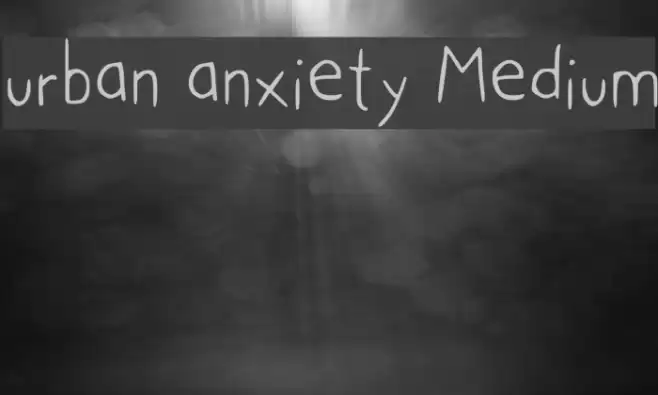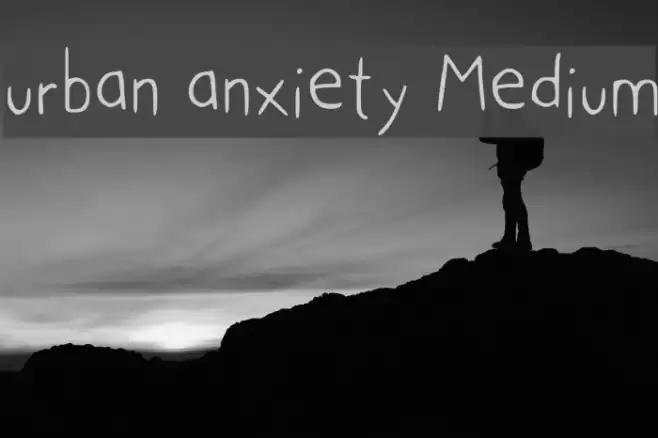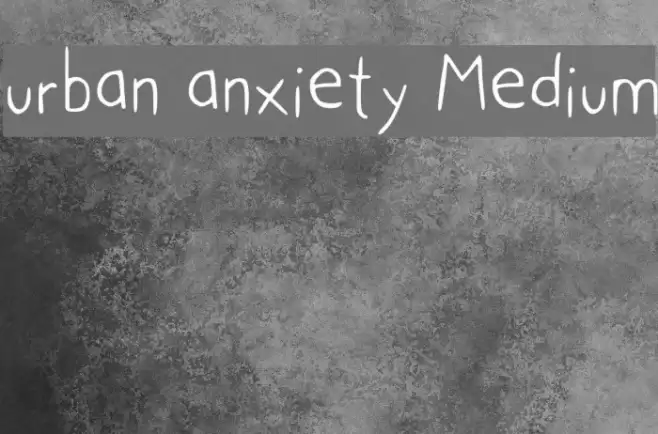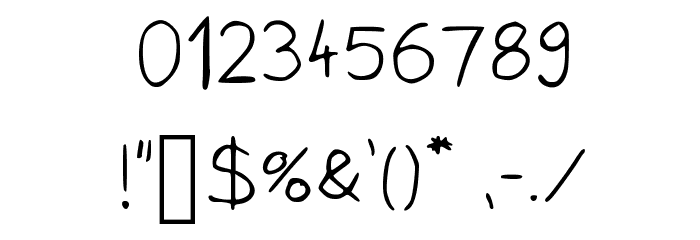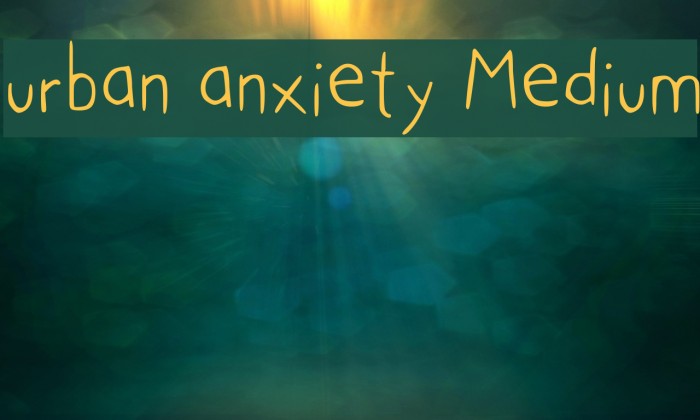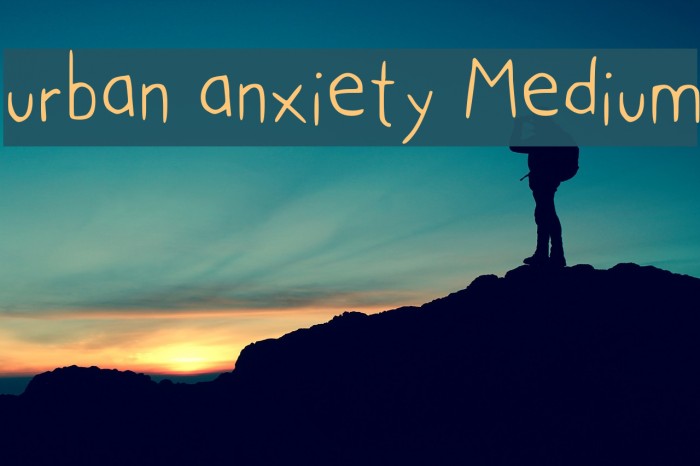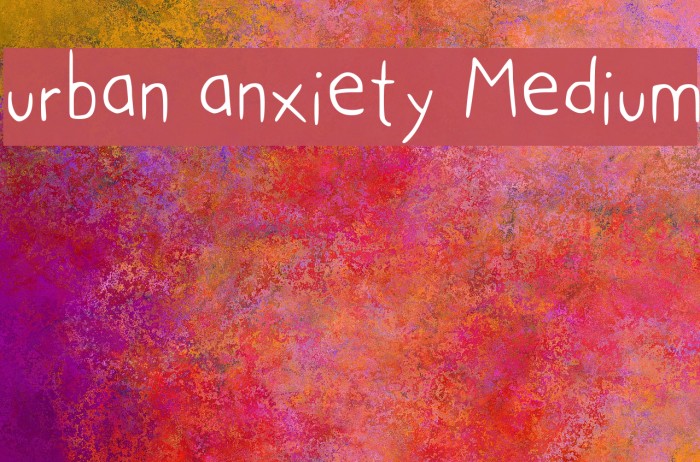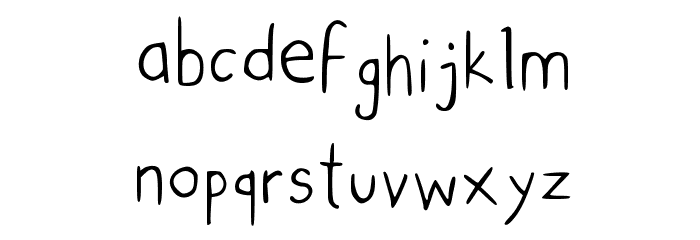
urban anxiety Medium Font
urban anxiety Medium Description
This font features a playful and slightly irregular style, giving it a hand-drawn appearance. The characters are tall and narrow, with a whimsical touch that adds personality to the text. The strokes are consistent in width, providing a uniform look despite the quirky design. The uppercase letters are bold and prominent, while the lowercase letters maintain a similar height, creating a cohesive visual flow. Numbers and special characters follow the same playful aesthetic, making this font suitable for creative and informal projects.
A playful, hand-drawn font with tall, narrow characters and a whimsical style from Handwritten fonts.
- Proposed Projects: Ideal for children's books, creative posters, casual invitations, and playful branding.
- Overall Style: Playful